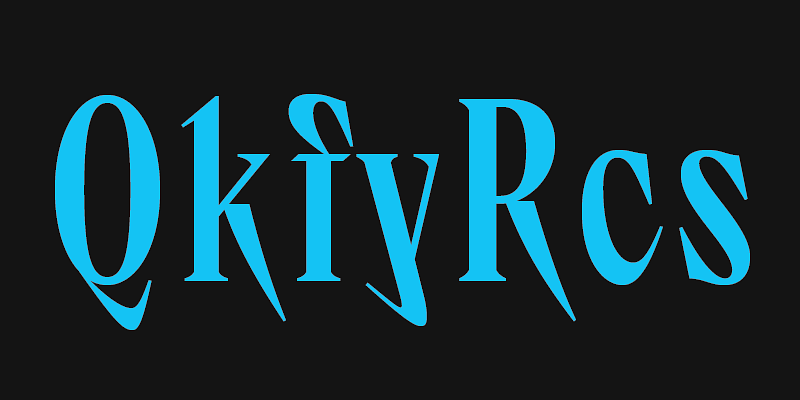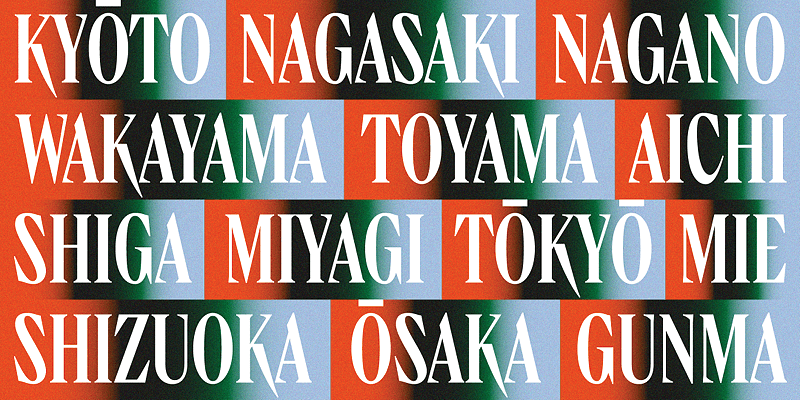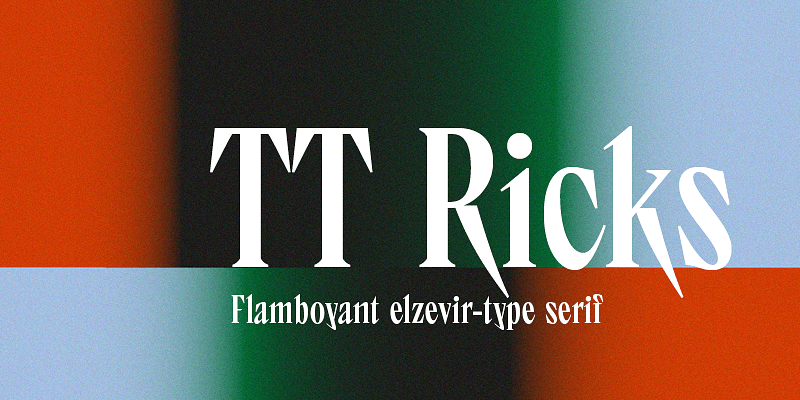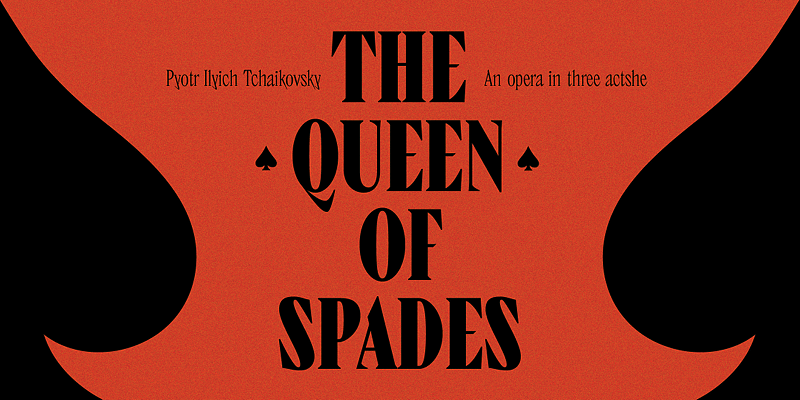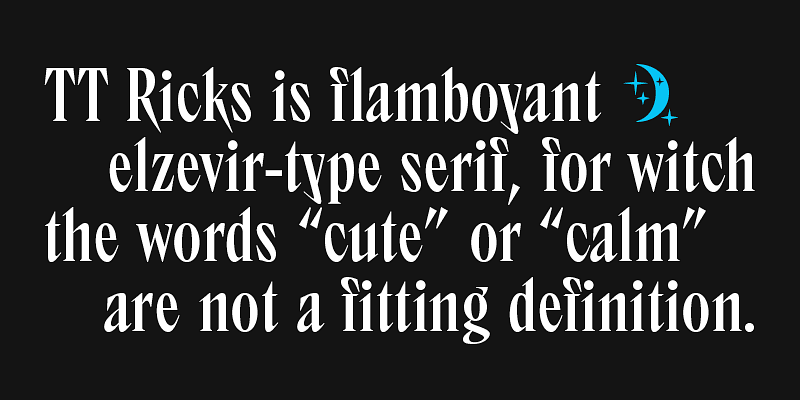
TT Ricks is a flamboyant elzevir-type serif, for which the words «cute» or «calm» are not a fitting definition. TT Ricks can be classified as a display title typeface that works especially well at large and medium sizes in packaging design, book graphics and posters.
The TT Ricks typeface stands out for its strong contrast, noticeable sharp serifs, narrow letterforms with a pronounced displacement of flows in the arches.